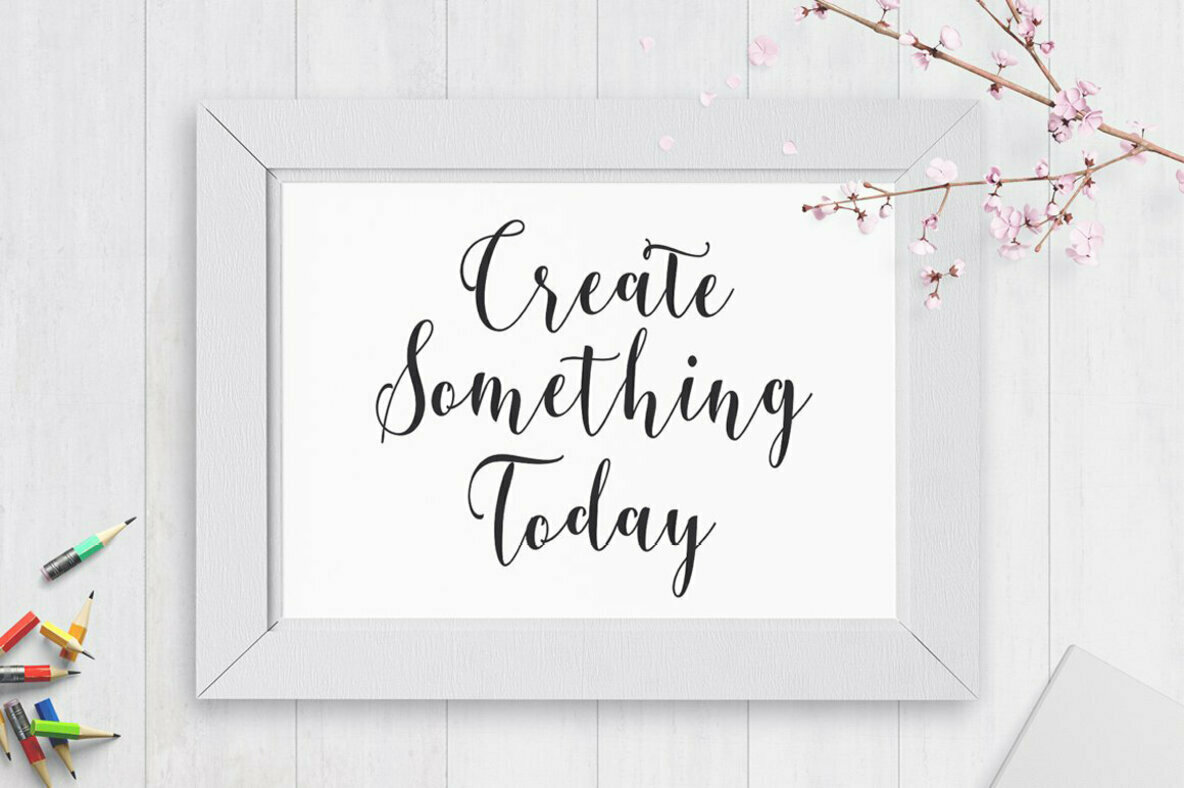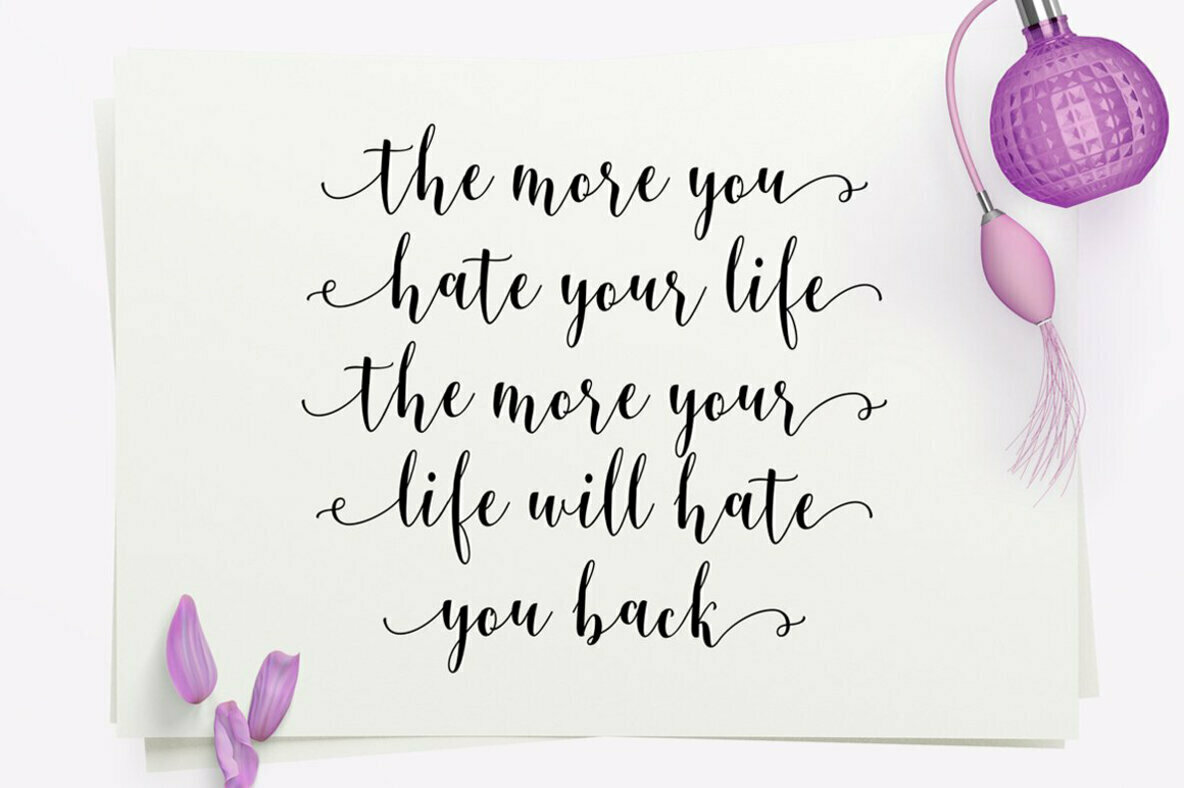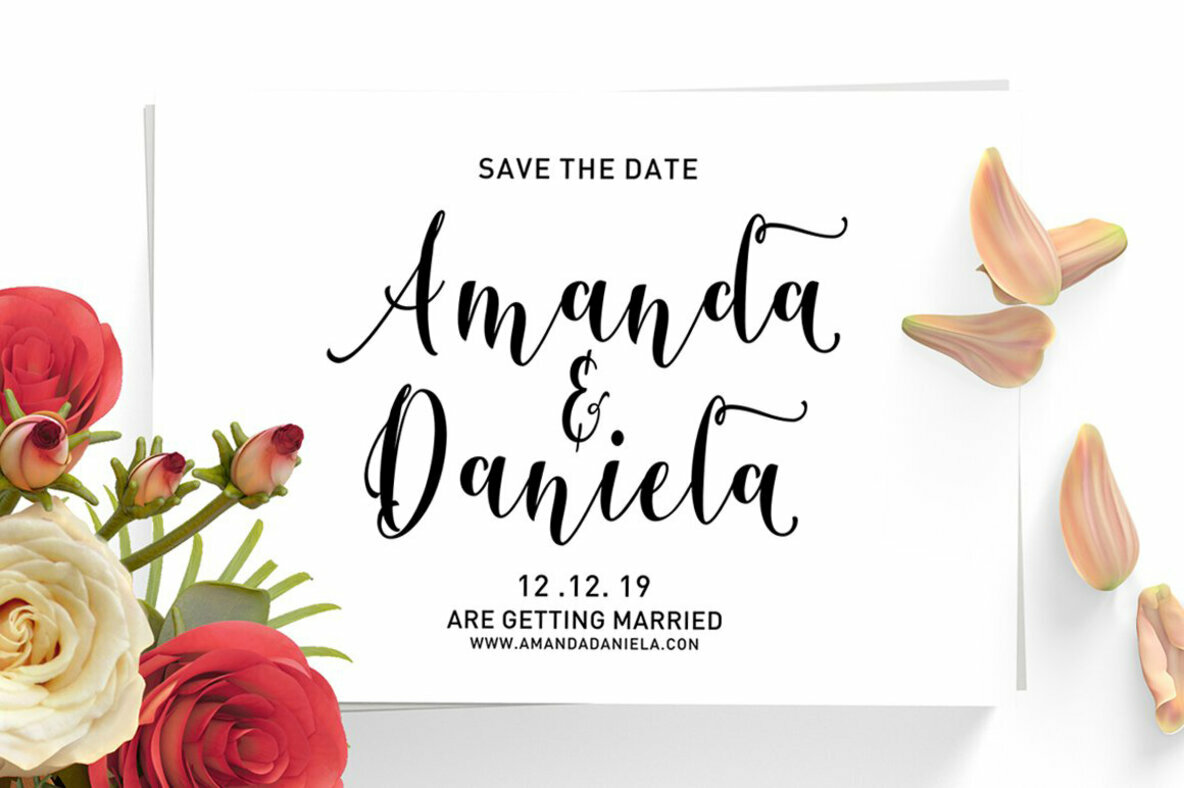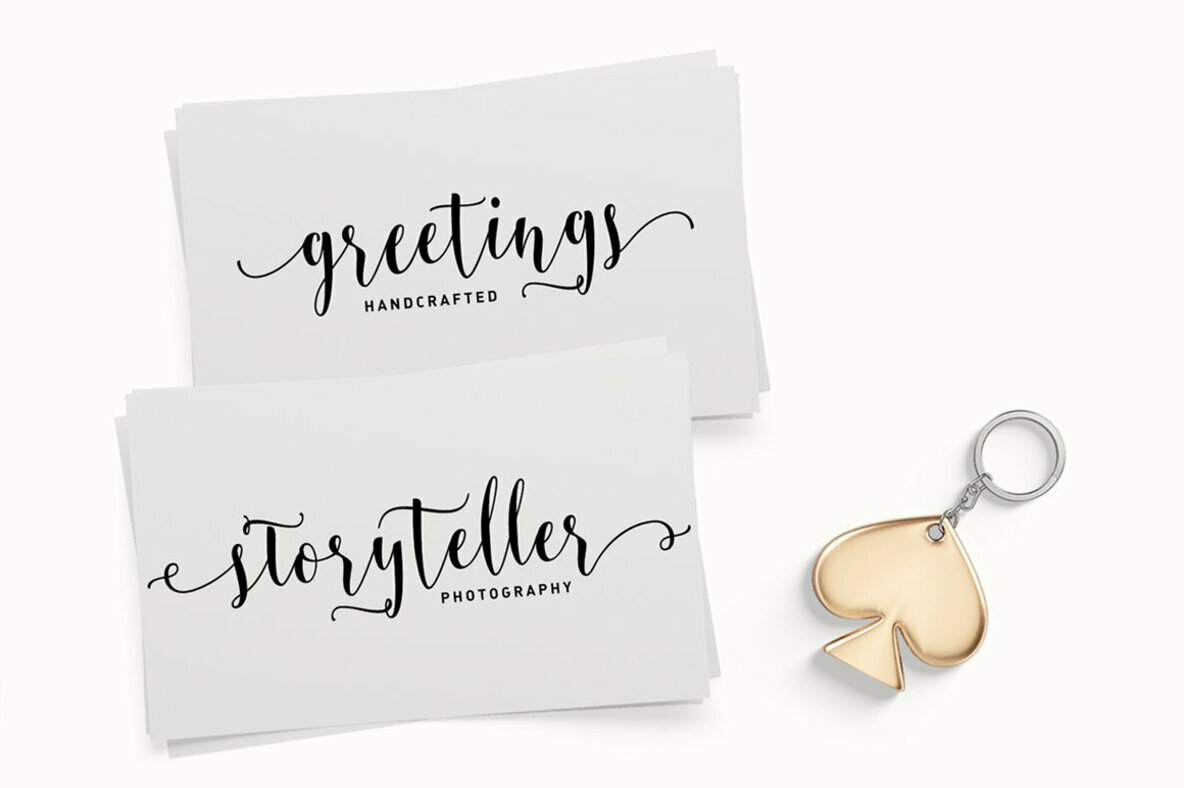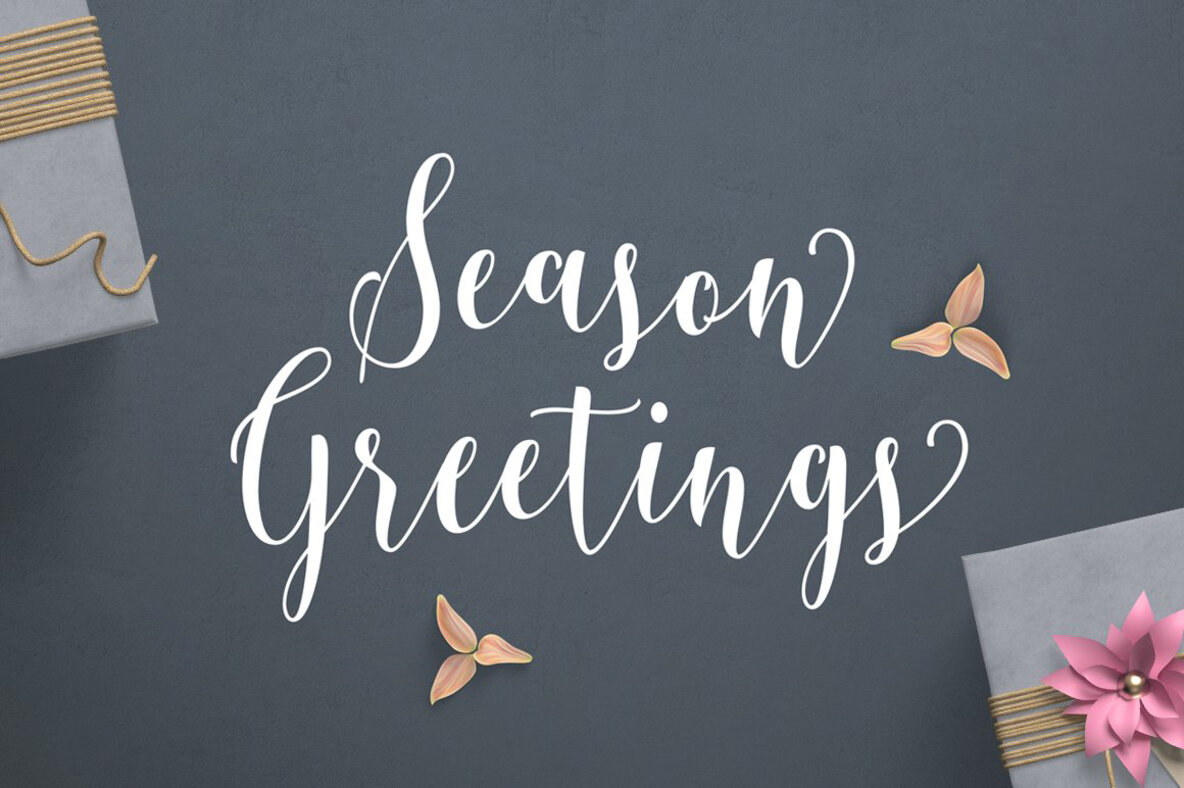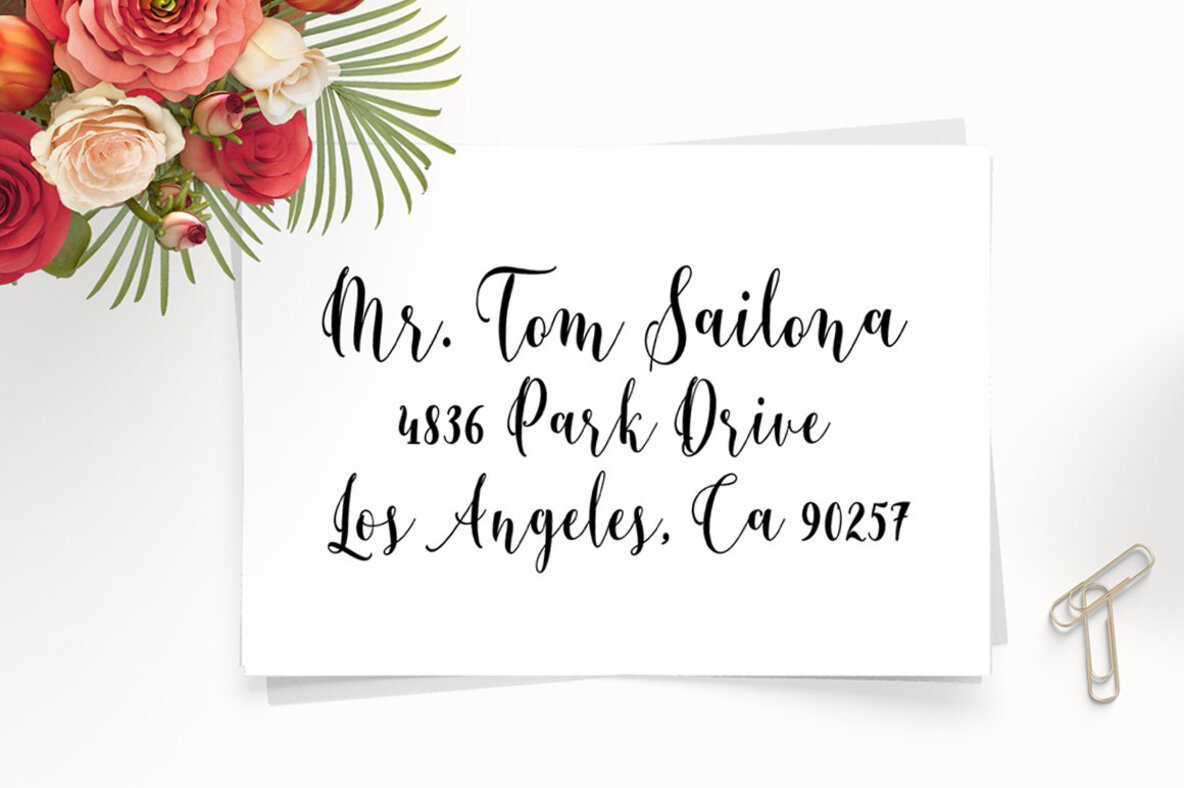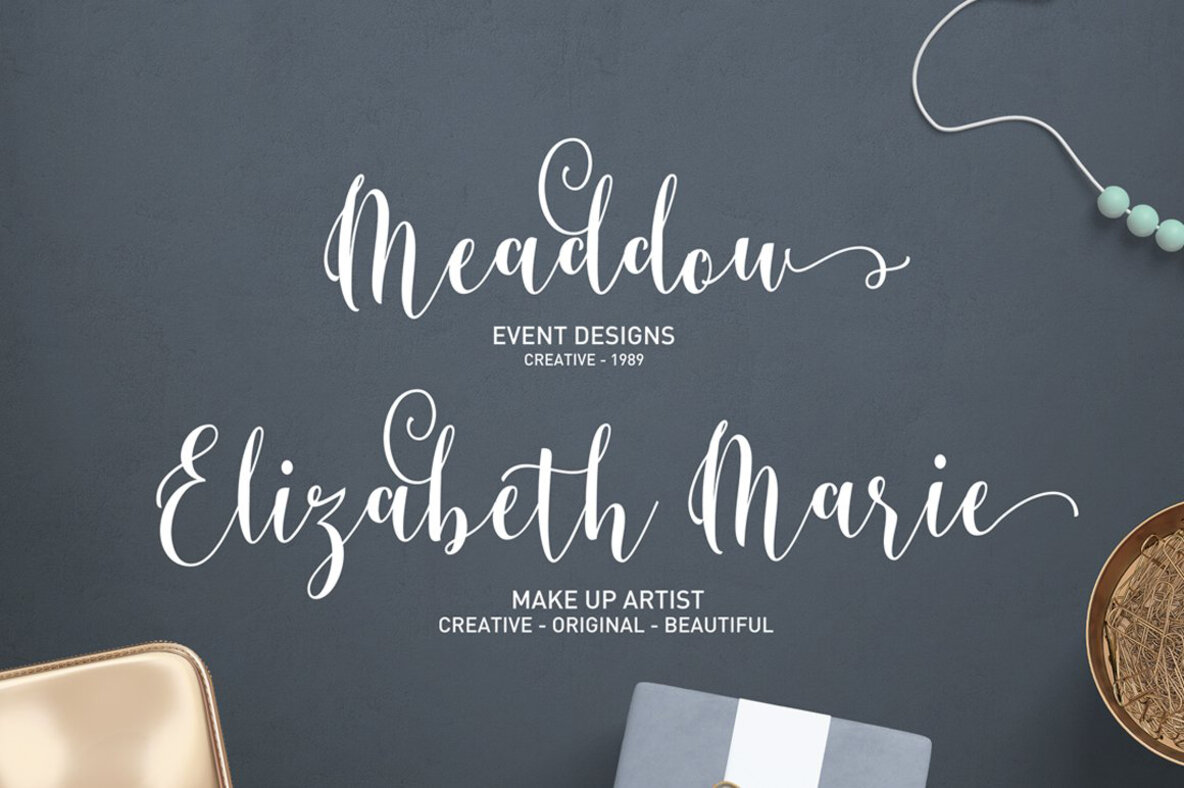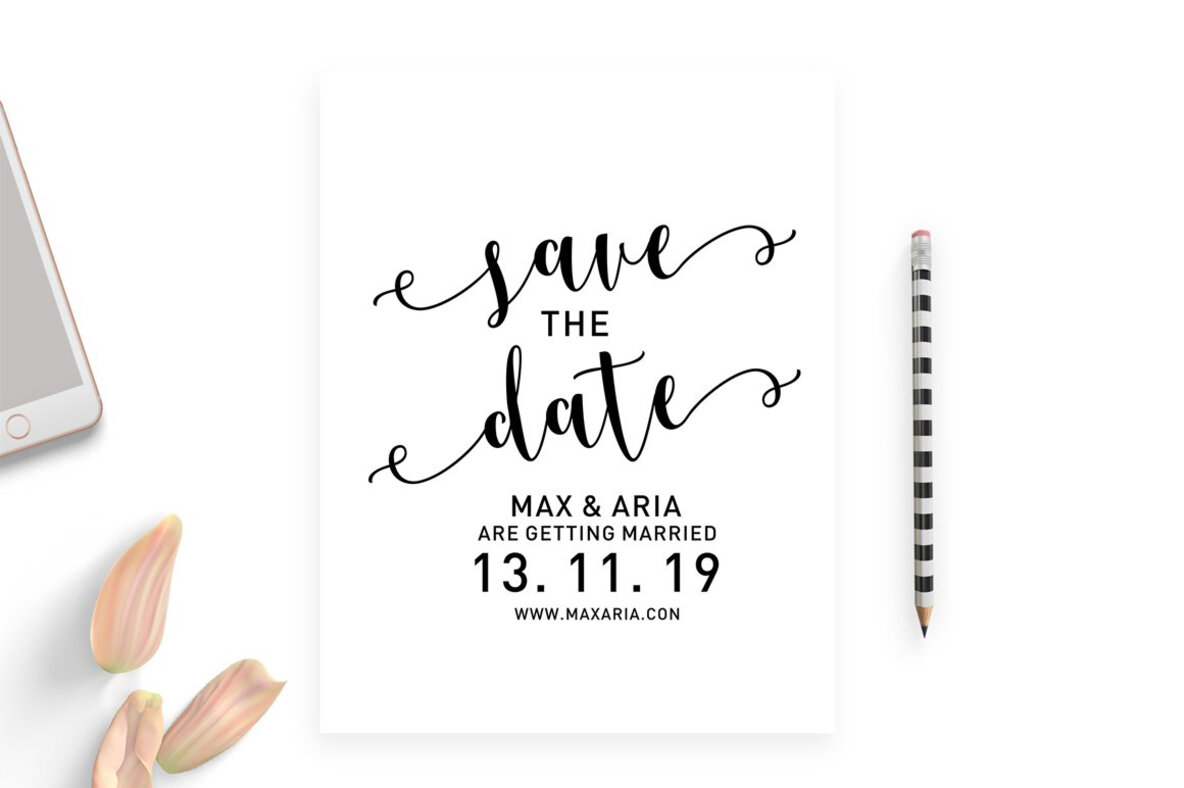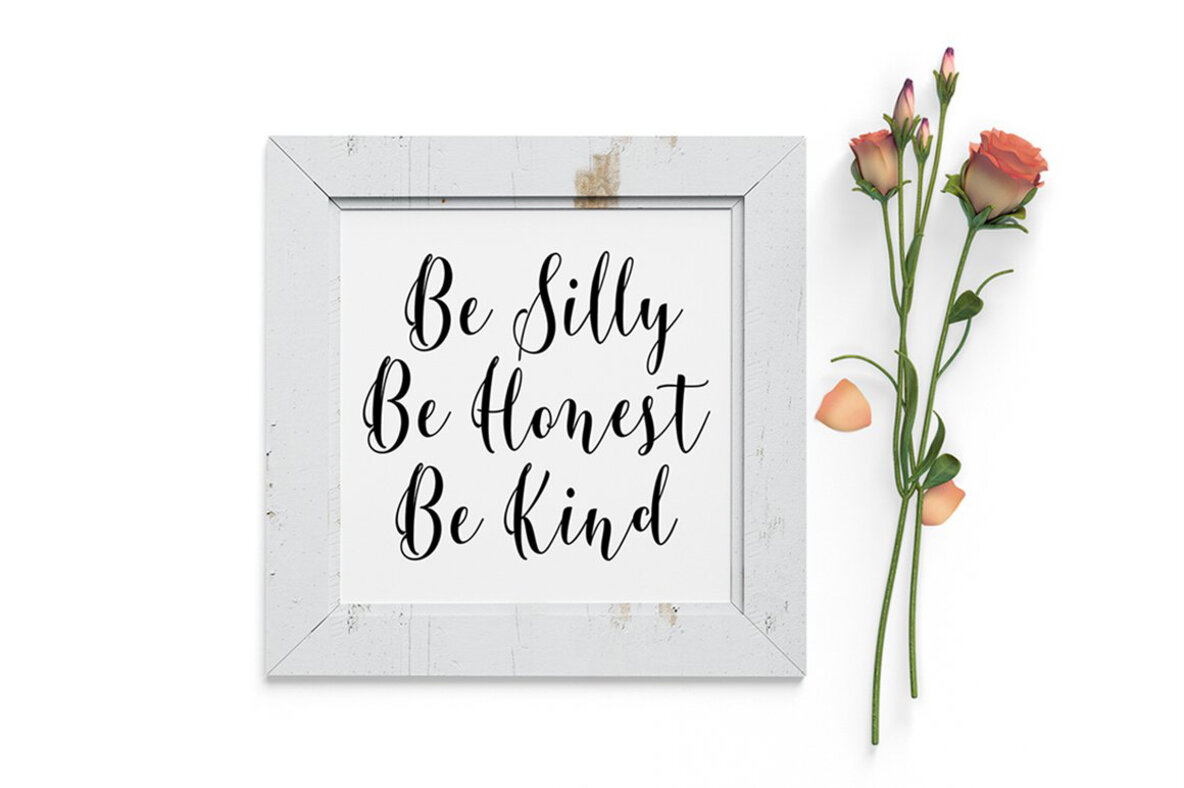
Berthilda Script
Berthilda Script - A contemporary calligraphy, with a vintage feel, style calligraphy with moving baseline and elegant touch. That makes the font look fabulous! Can be used for various purposes.such as headings, signature, logos, wedding invitation, t-shirt, letterhead, signage, lable, news, posters, badges etc.
Features 350+ glyphs and 179 alternate character. including initial and terminal letters, alternates, ligatures and multiple language support.